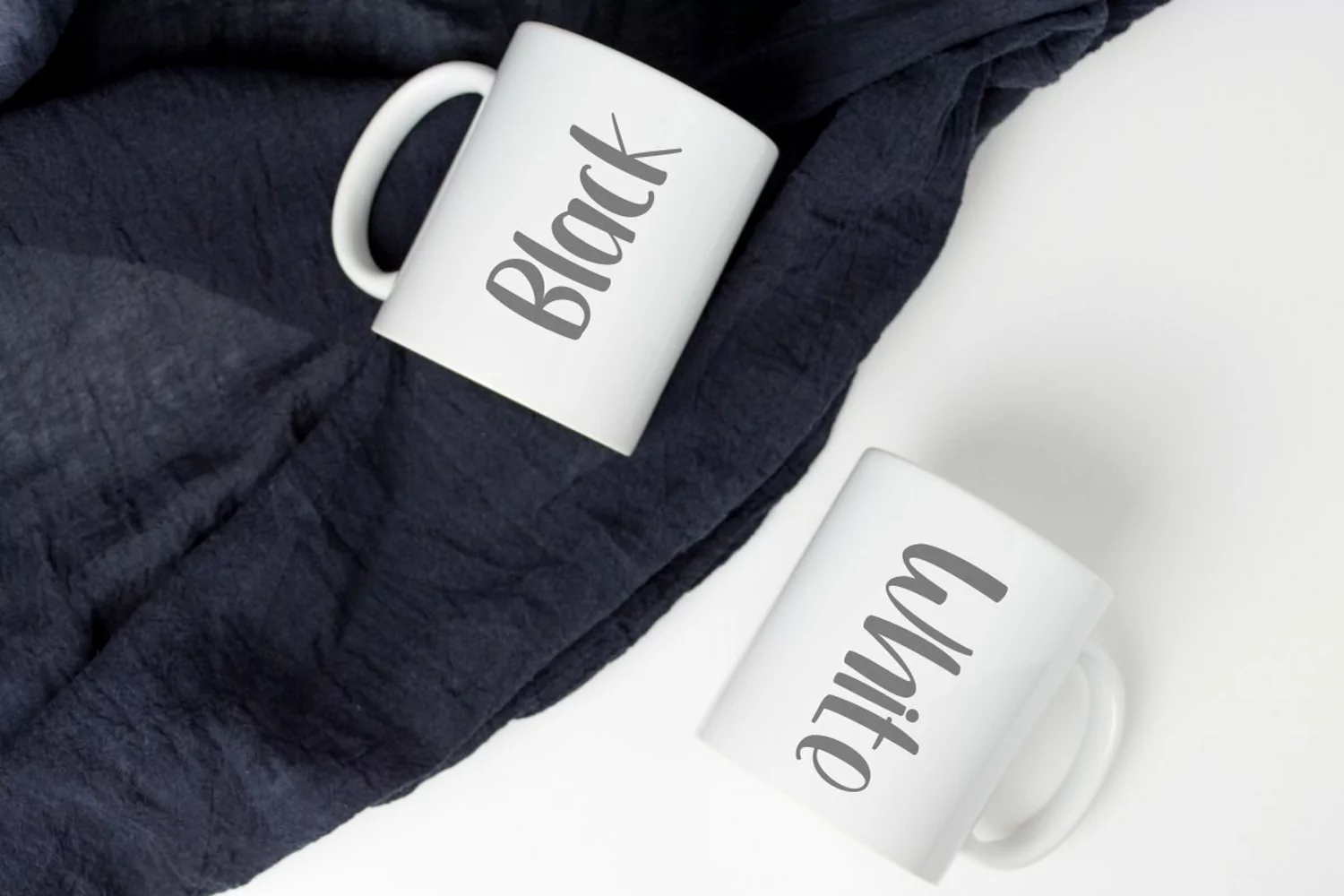
Withered Leaves is Handwritten font. It has a elegant, and modern look which can be used for logos, branding, invitations, stationary, wedding designs, social media posts, and every other design.